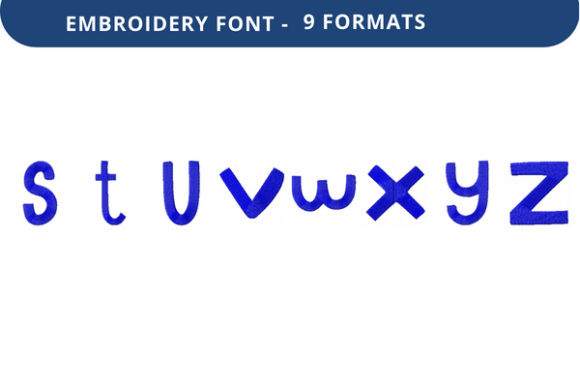
Taffy Luck Font Lowercase S to Z
When it comes to personalizing fabric with a touch of charm and character, the Taffy Luck Font Lowercase S to Z stands out as a versatile and stylish choice. Designed for embroidery enthusiasts and creators, this font offers a unique blend of whimsy and elegance that can elevate any project. Whether you're crafting custom gifts, branding materials, or decorative items, the Taffy Luck Font Lowercase S to Z provides a fresh way to bring your ideas to life.
A Unique Embroidery Font for Creative Expression
The Taffy Luck Font Lowercase S to Z is more than just a set of letters—it's a creative tool that allows users to infuse personality into their designs. Its playful yet refined aesthetic makes it ideal for both personal and professional use. Each letter is carefully crafted to maintain clarity and readability even when stitched onto fabric, ensuring that your message remains legible and visually appealing.
Practical Applications Across Multiple Industries
From small businesses to hobbyists, the Taffy Luck Font Lowercase S to Z has a wide range of applications. In the world of personalized gifts, it can be used to embroider names, dates, or special messages on clothing, towels, or accessories. For branding and marketing, it adds a distinctive visual element to logos, tags, or promotional items, helping to create a memorable brand identity.
In educational settings, the font can be used to label classroom supplies, craft projects, or student work. Teachers and educators often find it useful for creating custom labels or motivational quotes that encourage creativity and learning. Similarly, freelancers and entrepreneurs can leverage the font to add a personal touch to their portfolios, business cards, or packaging.
For digital creators and bloggers, the Taffy Luck Font Lowercase S to Z can enhance visual content by adding embroidered text to social media posts, blogs, or e-books. Its clean lines and charming design make it an excellent choice for digital embroidery projects that are then printed or displayed in physical form.
Why Choose the Taffy Luck Font Lowercase S to Z?
The Taffy Luck Font Lowercase S to Z is designed with usability in mind. Its consistent stroke widths and balanced proportions ensure that each letter looks great at different sizes, making it suitable for both small details and large-scale designs. The font also maintains its readability when viewed from a distance, which is particularly useful for signage or banners.
Real-World Use Cases and Recommendations
Consider using the Taffy Luck Font Lowercase S to Z for a birthday gift—embroidering a name or a heartfelt message on a tote bag or apron adds a personal touch that recipients will appreciate. For a wedding or event, it can be used to create custom table numbers, place cards, or signage that reflects the theme and style of the occasion.
In a commercial setting, the font can be used to label products, create branded merchandise, or add unique elements to packaging. Retailers and boutique owners often find that incorporating the Taffy Luck Font Lowercase S to Z into their designs helps differentiate their offerings and creates a cohesive brand image.
For educational institutions, the font can be used to create personalized awards, certificates, or student projects. It’s also a great option for DIY kits or craft supplies, where clear and attractive typography enhances the overall user experience.
When selecting an embroidery font like the Taffy Luck Font Lowercase S to Z, it's important to consider factors such as readability, scalability, and compatibility. Always test the font on different materials and machines to ensure that it performs as expected. Additionally, reviewing the file formats and support options provided by the font creator can help streamline the implementation process.
Conclusion
The Taffy Luck Font Lowercase S to Z is a powerful tool for anyone looking to add a unique and stylish element to their embroidery projects. With its versatility, ease of use, and aesthetic appeal, it’s an excellent choice for both personal and professional applications. Whether you're a hobbyist, a business owner, or a creative professional, this font can help you create designs that stand out and resonate with your audience.